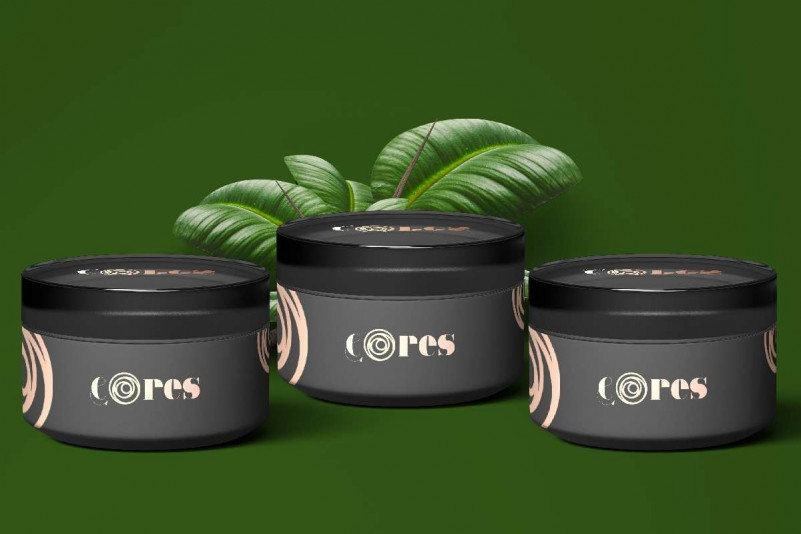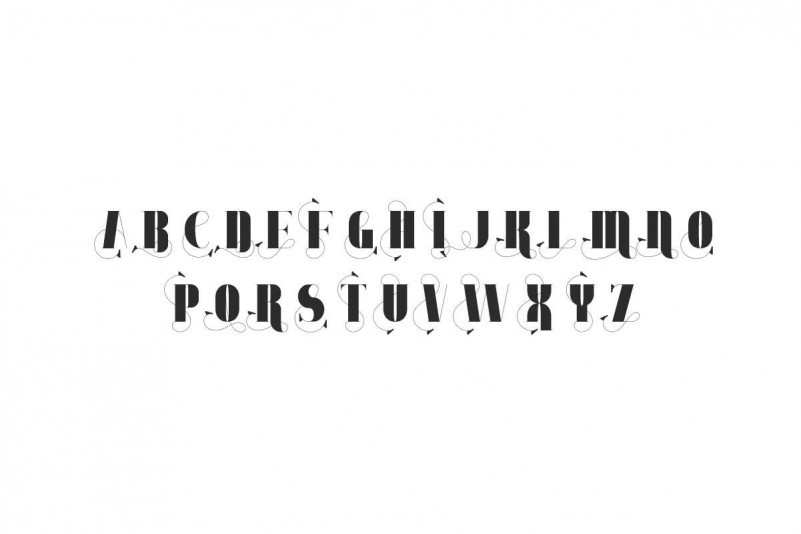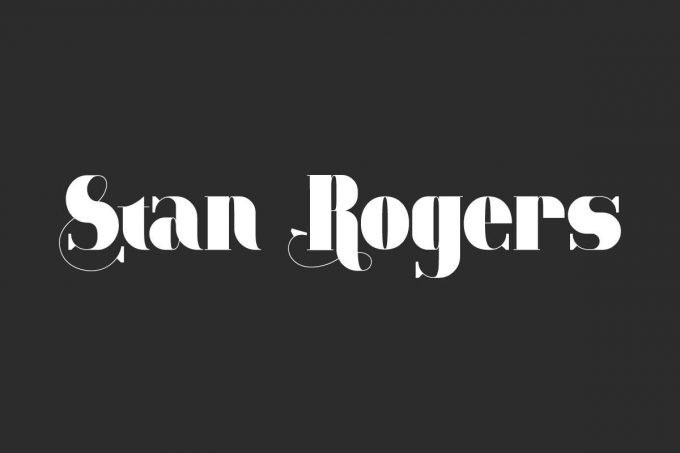
Stan Rogers Serif Font
Stan Rogers Font is a display font inspired from late classic style. This font has unique characters and classy style that looks awesome in just about every context. Use it for logos, print, collage, body text, and more!
Stan Rogers Serif Font includes full set of Uppercase and Lowercase Basic Characters, Numerals and Punctuation. Also it contains ligatures to make it flowless characters to perfectly make awesome look that add more aesthetic fonts to perfect your extraordinary project. Stan Rogers Font will be great for Use it for any project that needs a unique, authentic look!
Stan Rogers Font has two styles : Regular and italic style. Test Stan Rogers Font Demo below (some characters maybe not available on demo) .